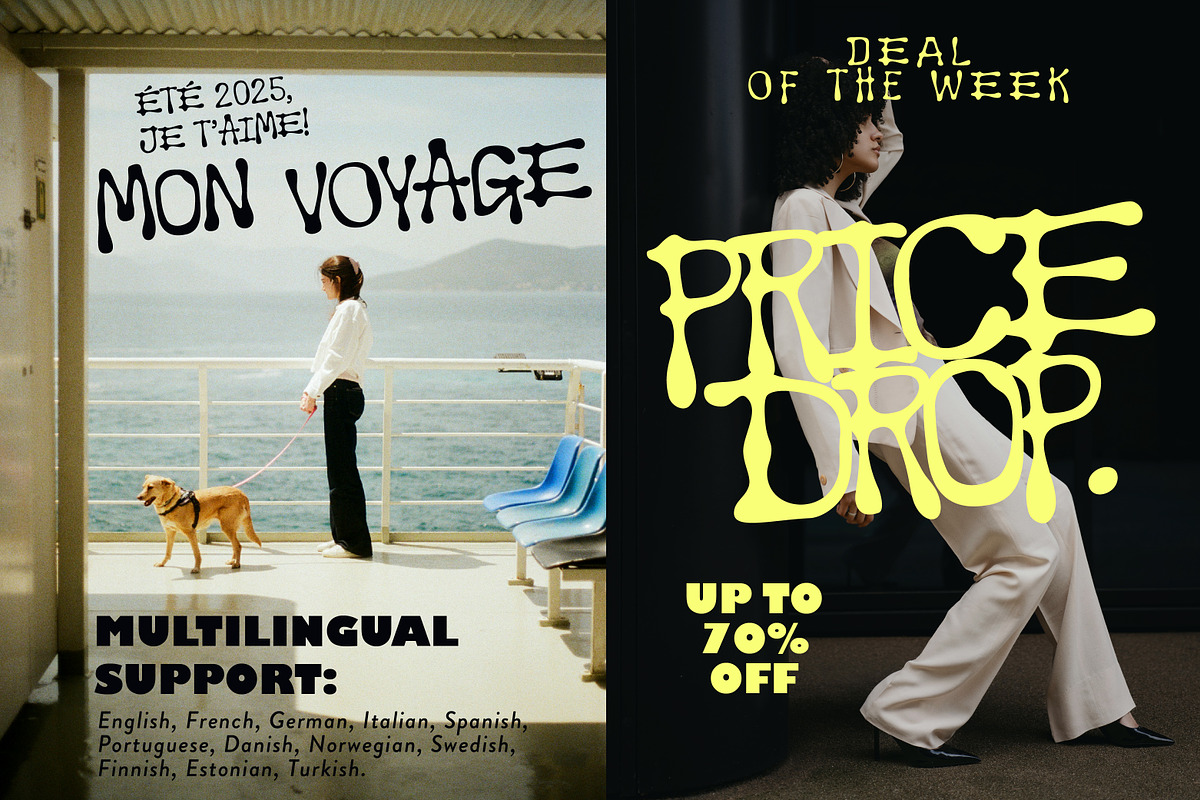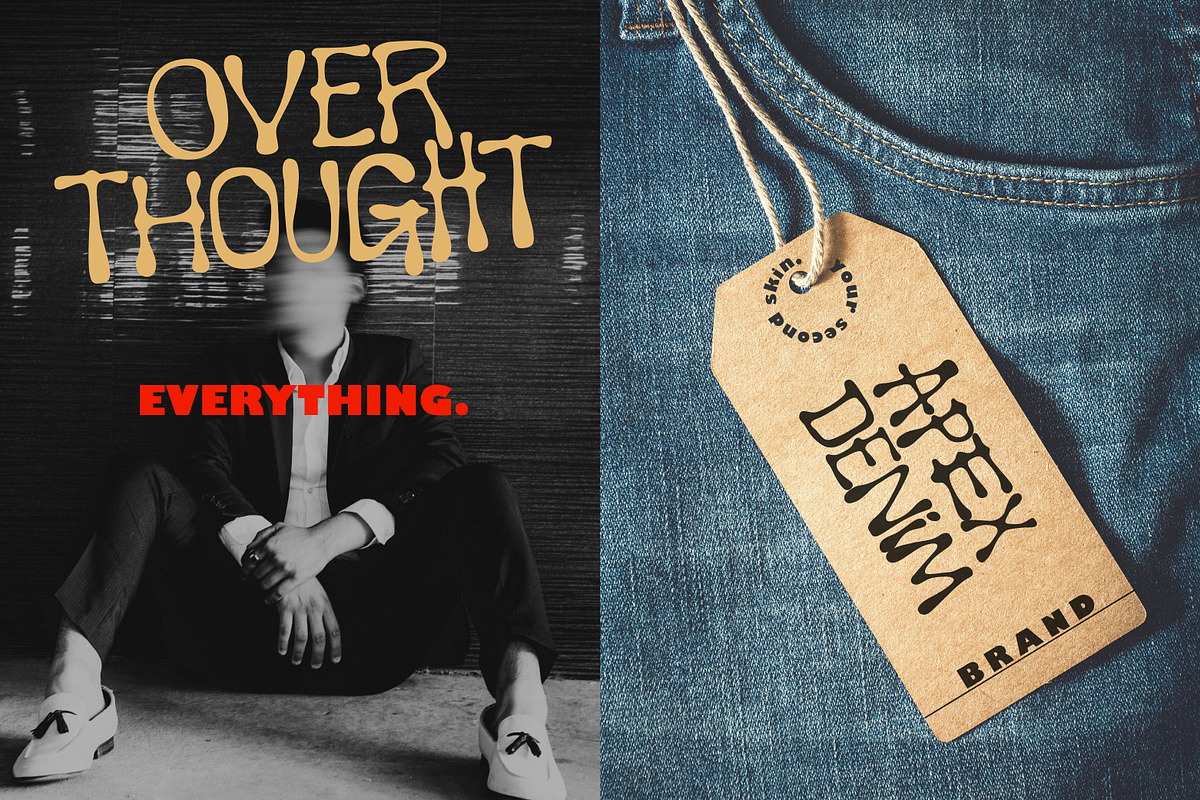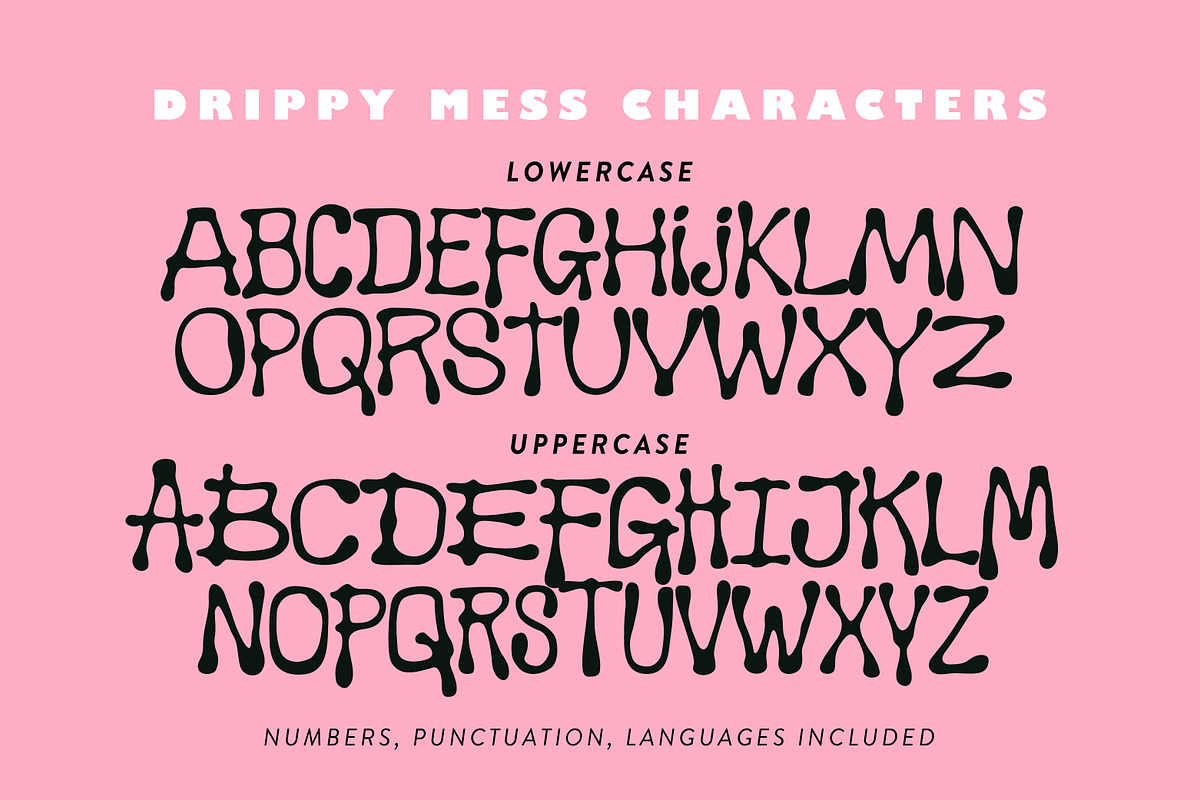
Drippy Mess Handwritten Inky Sans
Drippy Mess is a hand-drawn all-caps sans serif that celebrates the beauty of controlled chaos, blending grunge rawness with graffiti-like energy. Each letter features signature ink-drip endings and gritty textures that feel pulled from a concrete wall or a worn sketchbook. Its unapologetically unpolished style delivers an urban, effortless vibe that’s perfect for bold branding, edgy merchandise, Gen-Z-focused packaging, and posters that need to stand out with personal, expressive, and authentically street-wise character.
Drippy Mess supports the most popular latin-based languages, you can check the symbol you need by typing a couple of words in the font preview box.